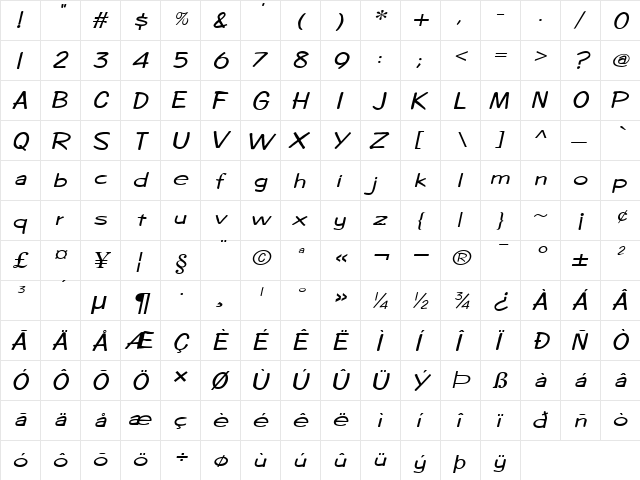
Copybook-Extended Italic
Design Context for Copybook-Extended Typeface
Copybook-Extended is a composed and adaptable typeface that performs quietly and consistently across a wide range of design contexts. The dynamic lean of this cut emphasises speed and emphasis in any layout.
Pro Tip: Use Copybook-Extended for emphasis, pull quotes, and subheadings where its slanted energy can add rhythm to the layout.